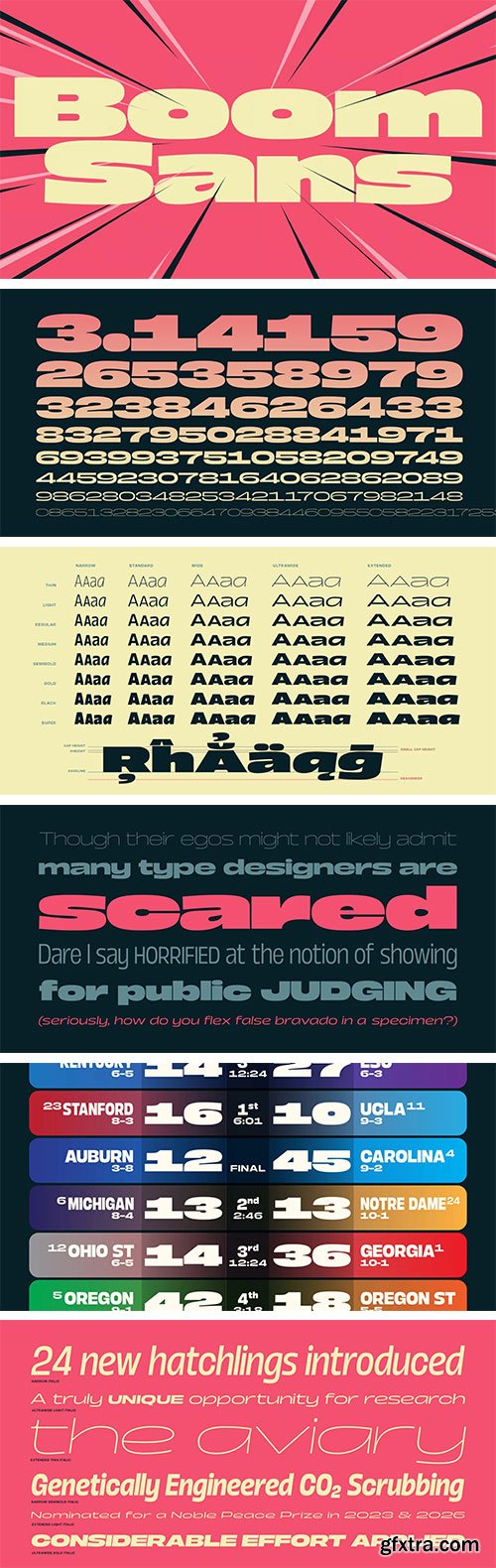
One of the standout features of Boom Sans is its sheer versatility. This isn’t a one-trick pony. The Boom Sans font family typically includes a comprehensive range of weights. Think about possibilities from a delicate Hairline or Thin, perfect for sophisticated, airy headlines. Then, consider Light and Regular weights, ideal for legible and elegant body text. As you move up, Medium, Semibold, and Bold weights offer increasing emphasis for subheadings or highlighting key information. Finally, powerful Black or UltraBlack weights can create truly impactful statements in display settings.